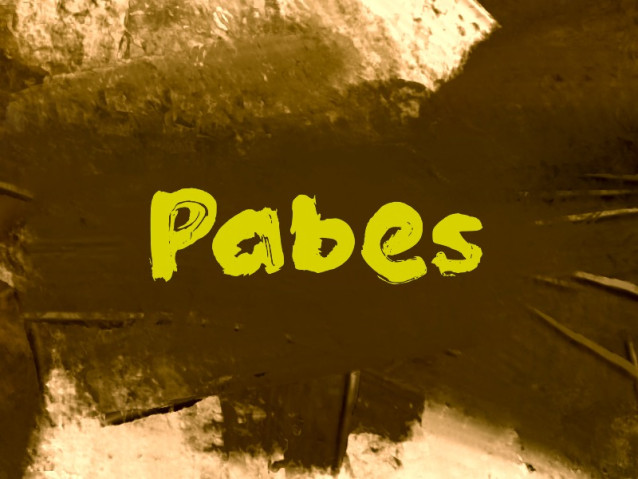
Pabes Font
Pabes Font is a simple and modern display font suitable for quotes, logos, headings, titles, and many more. Use it on any of your creative projects, and your designs will become outstanding!